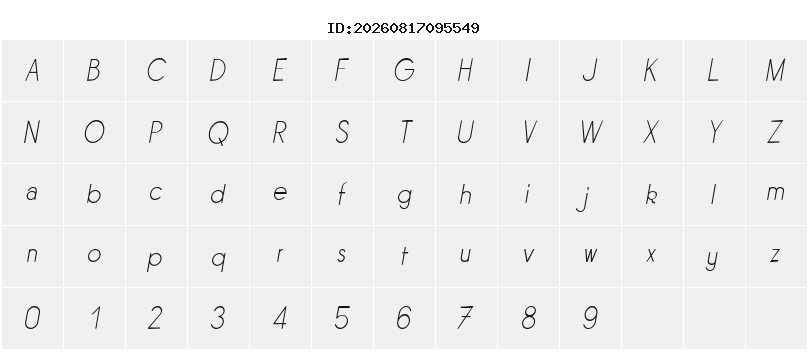
Sornette Preview
• Font Name: Sornette
• Font Style: Light Italique
• Full Font Name: Sornette Light Italique
• PostScript Name: SornetteLightItalique
About Sornette.ttf
Sornette.ttf is a modern, elegant sans-serif font designed for ultimate readability and visual harmony. Perfect for branding, headlines, web design, and print materials.